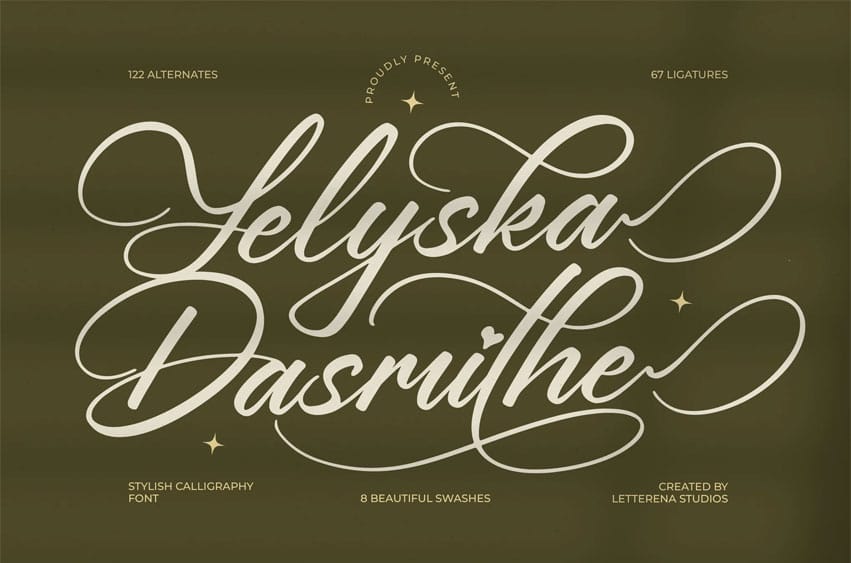
Yeliska Dasmithe Font
Yeliska Dasmithe Font is a suitable to complement your digital and printed creative products. This font is perfect for posters, social media posts, branding, personal projects, etc.